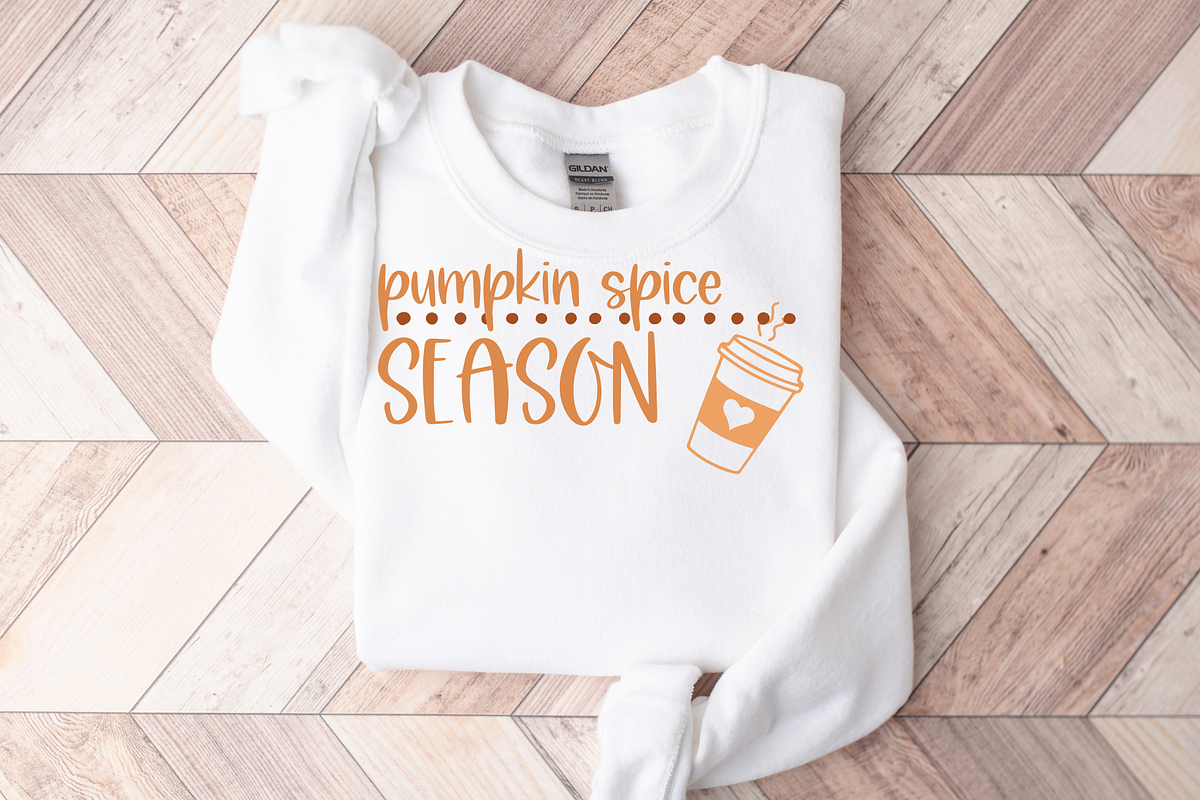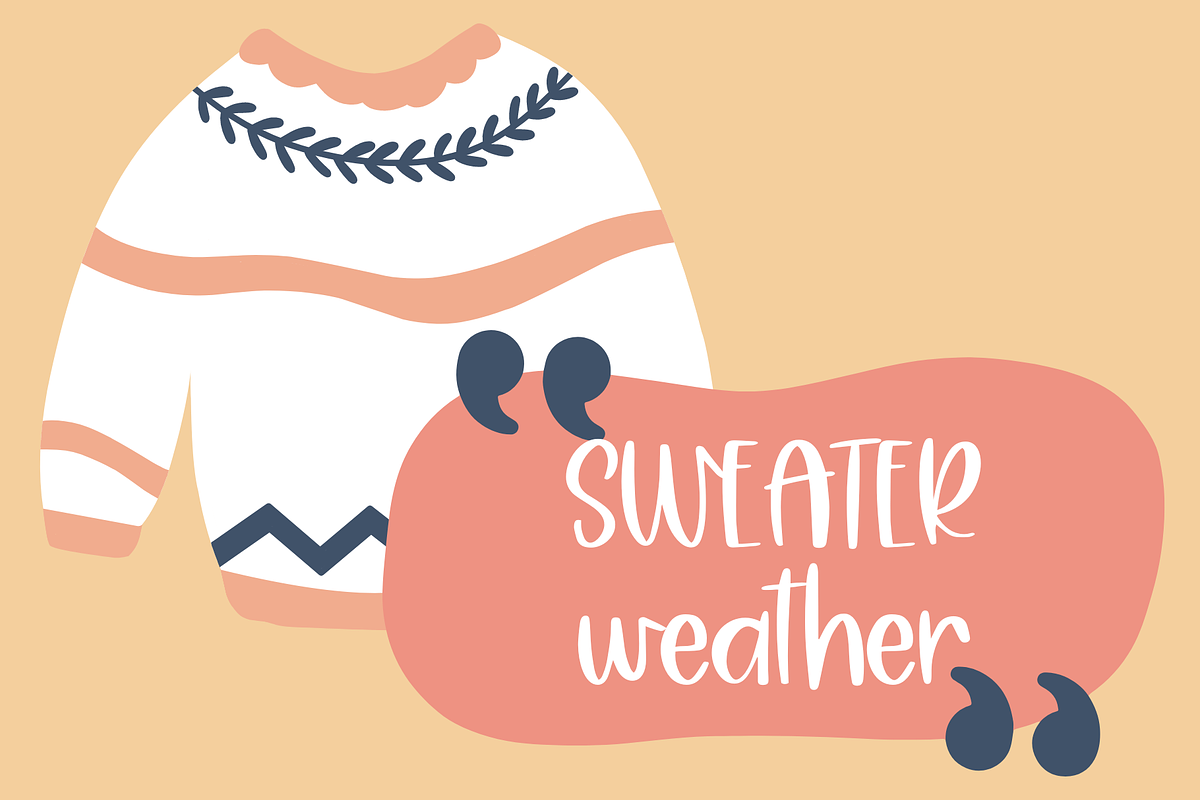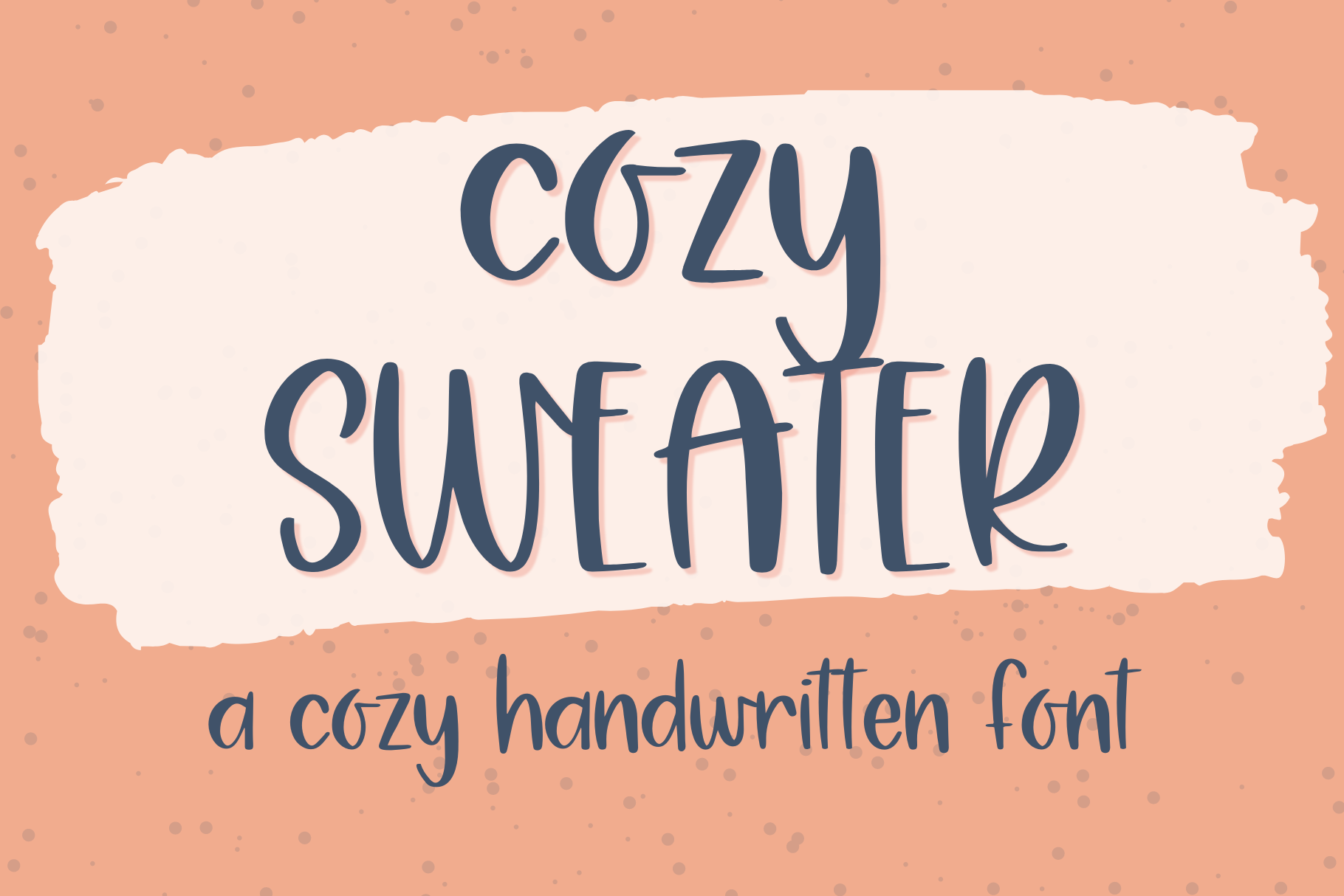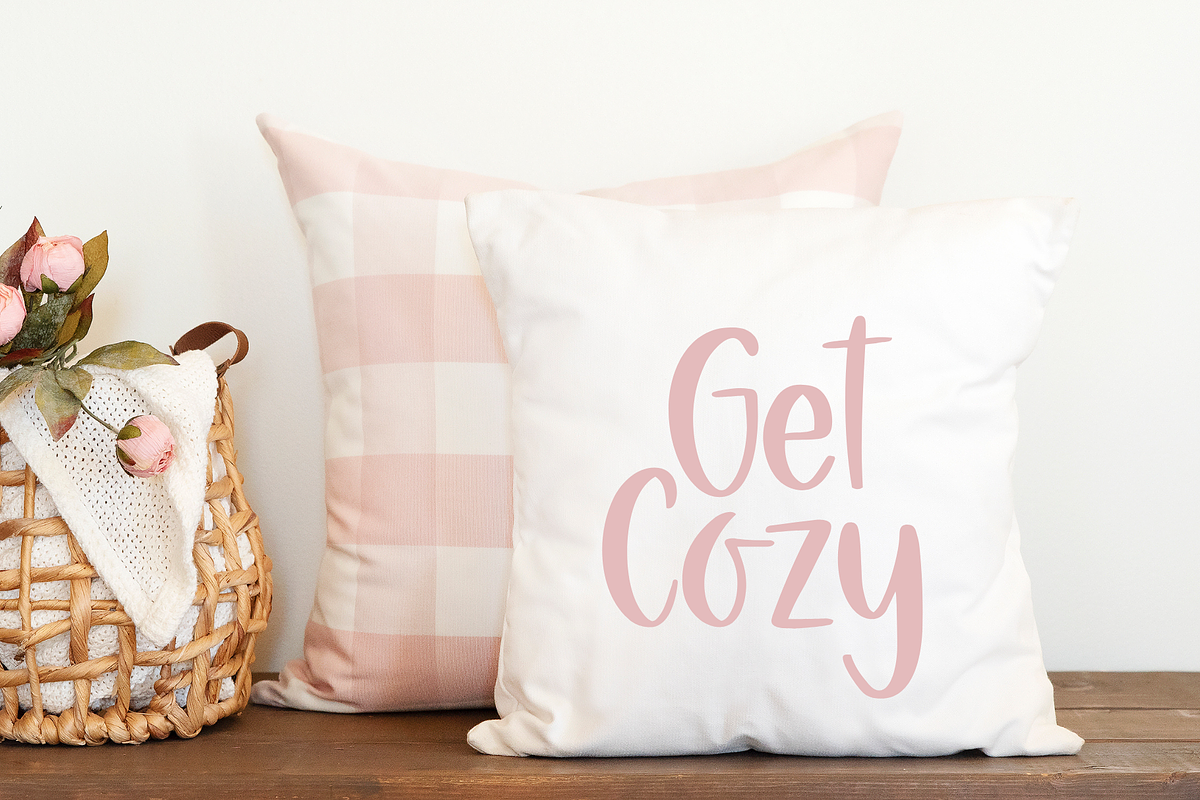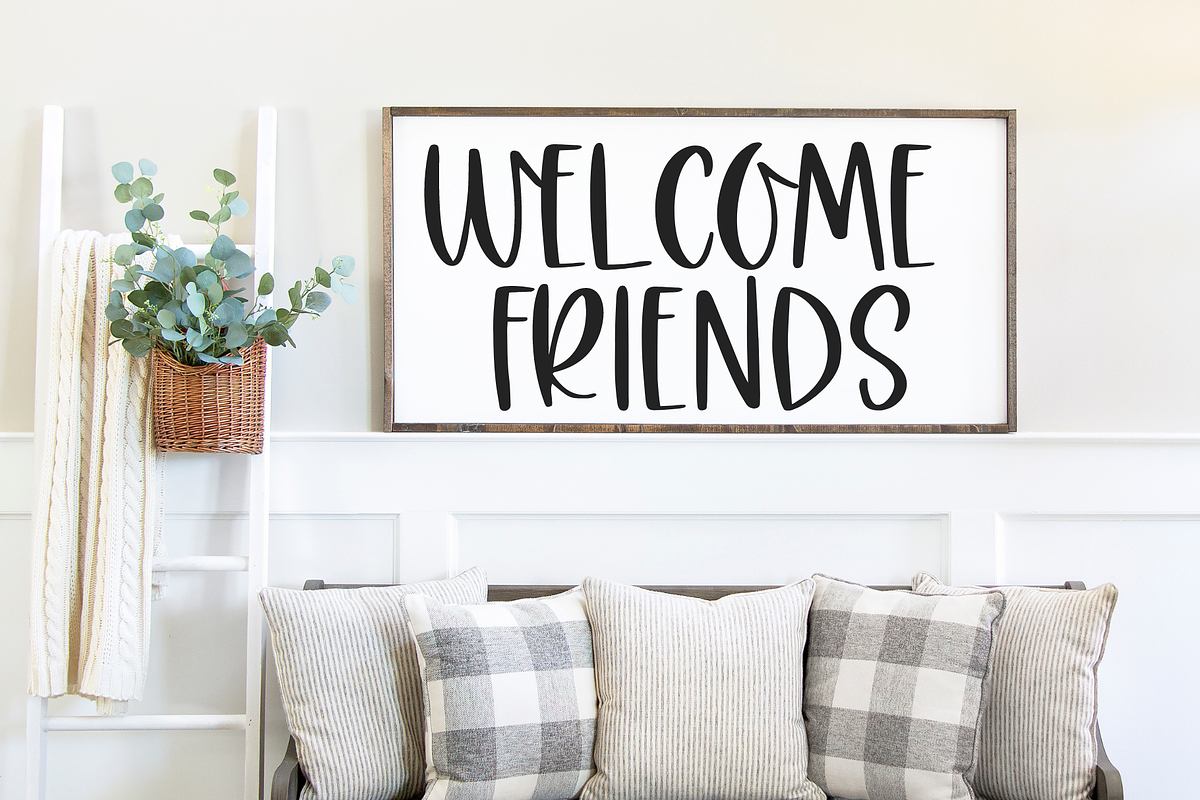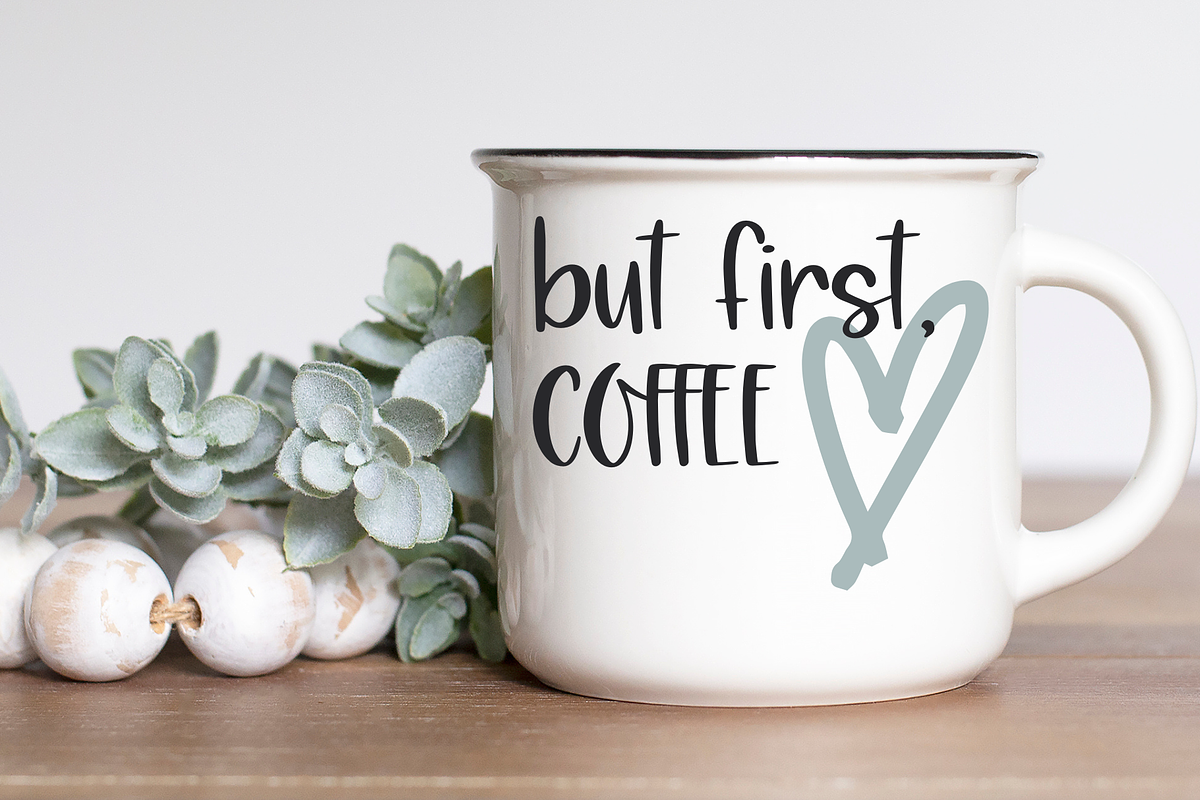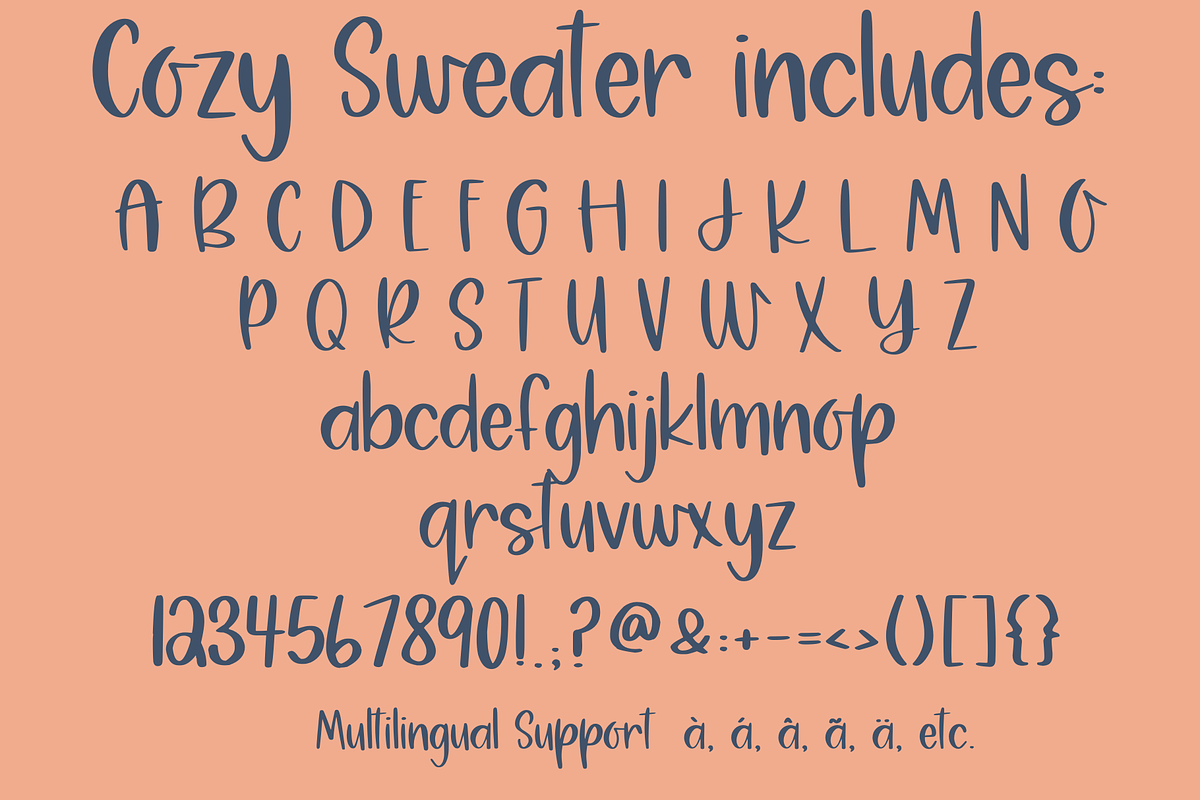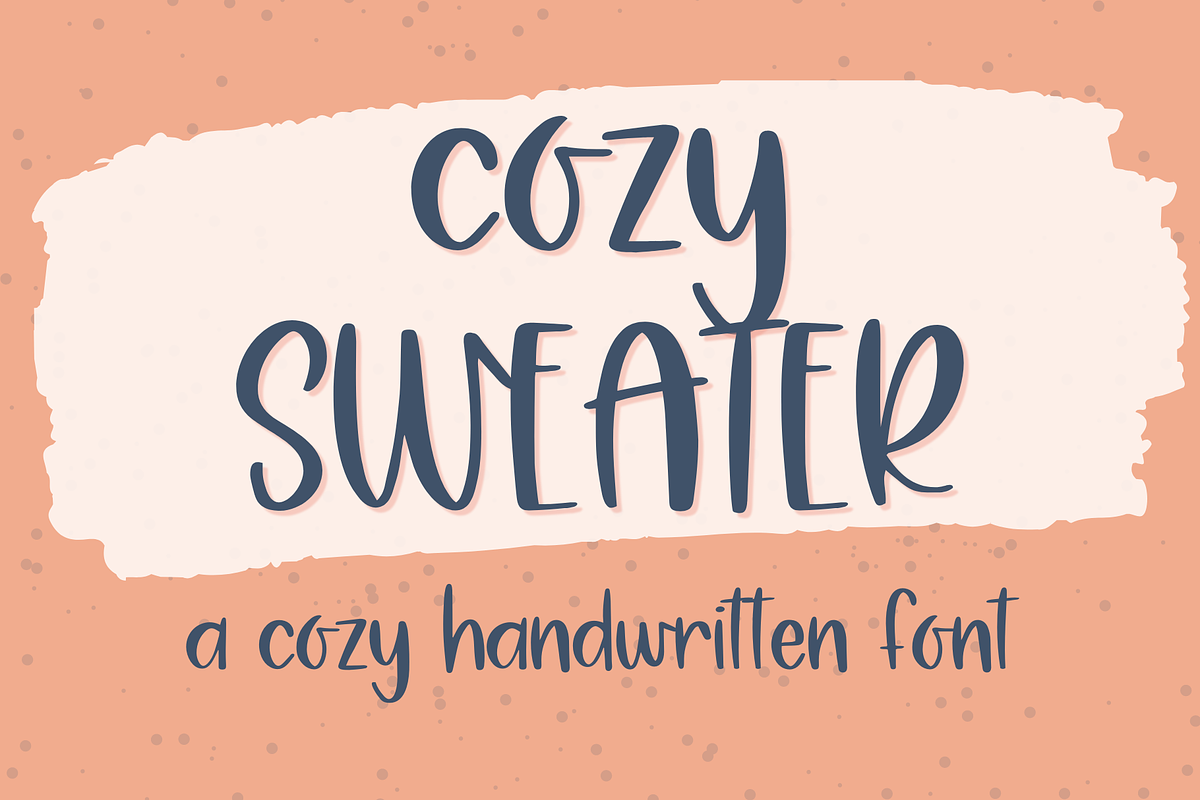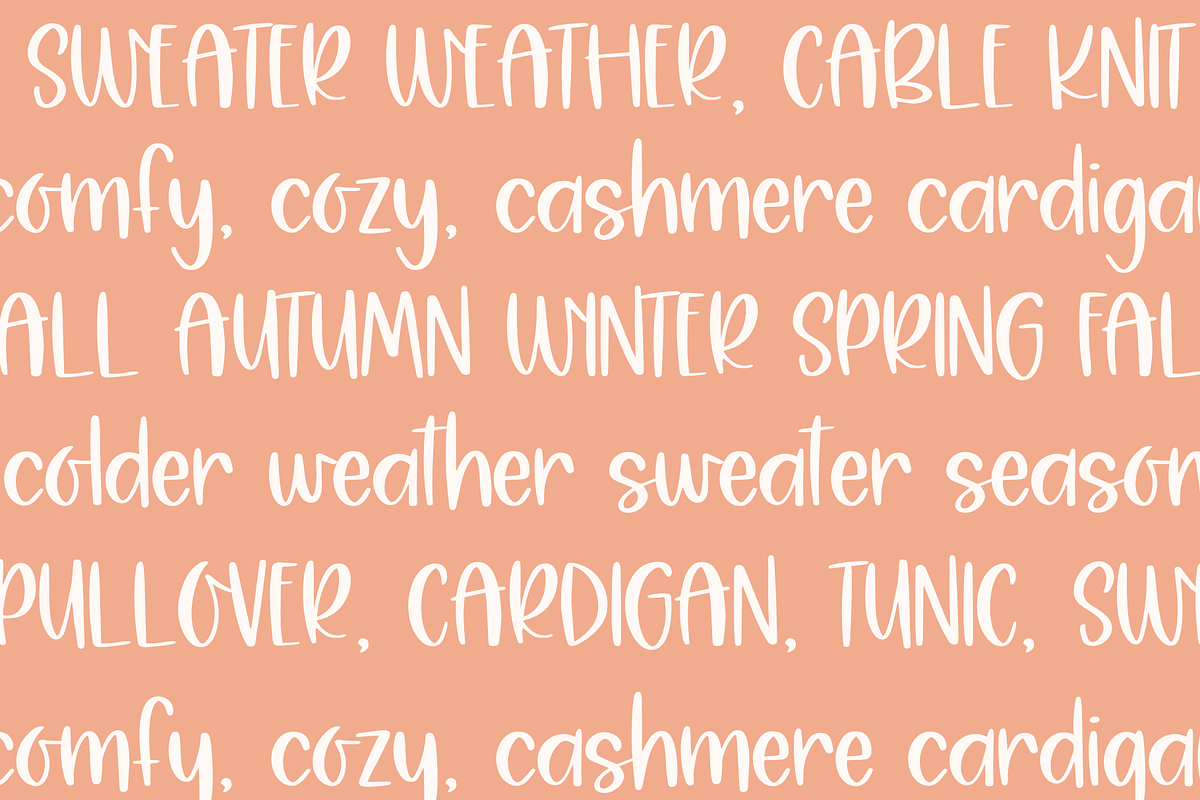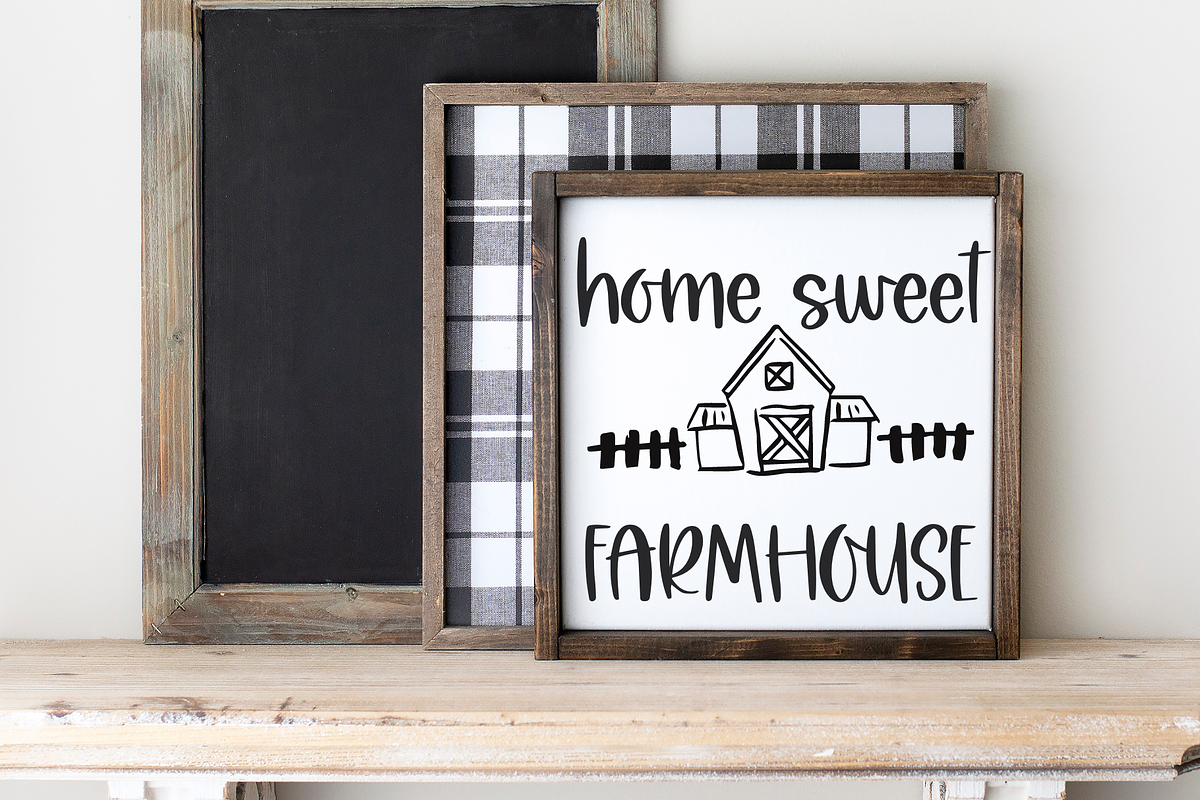
Cozy Sweater, Cute Handwritten Font
Introducing Cozy Sweater, a cute handwritten Font for Cricut and more- a charming and cute addition to your creative projects! Our handwriting font is compatible with Cricut SVGs, Goodnotes, Procreate, and many other programs. With its playful and fun handwriting style, it adds a touch of whimsy and personality to any project. Whether you're crafting cards, scrapbooking, or designing SVG files, this font will bring your creations to life. Get ready to impress with our amazing Cricut font collection and unlock endless possibilities for your artistic endeavors!